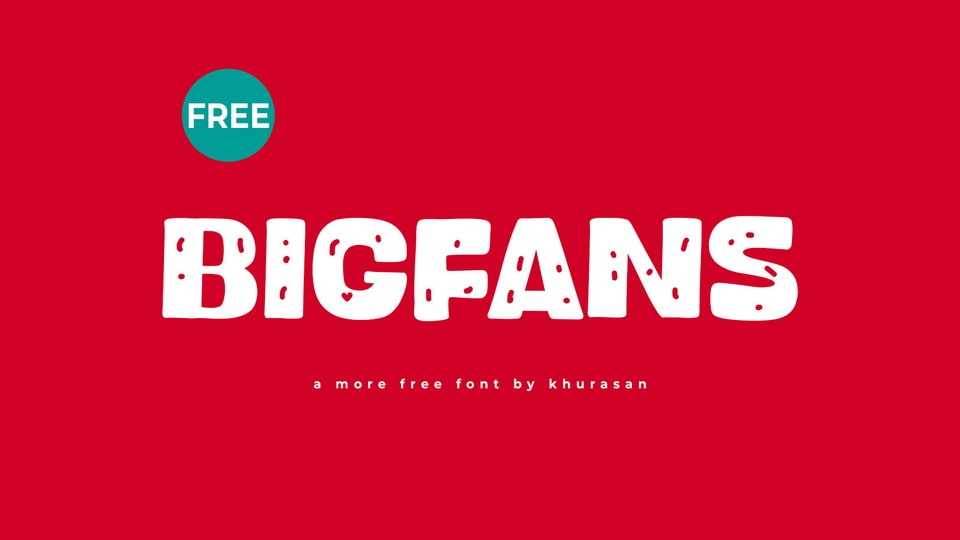
Download Bigfans font, a bold and inviting handcrafted typeface that combines warmth with rugged character. Bigfans font is lovingly crafted with a handmade touch, featuring rough textures and imperfect lines that add a unique sense of authenticity and charm.